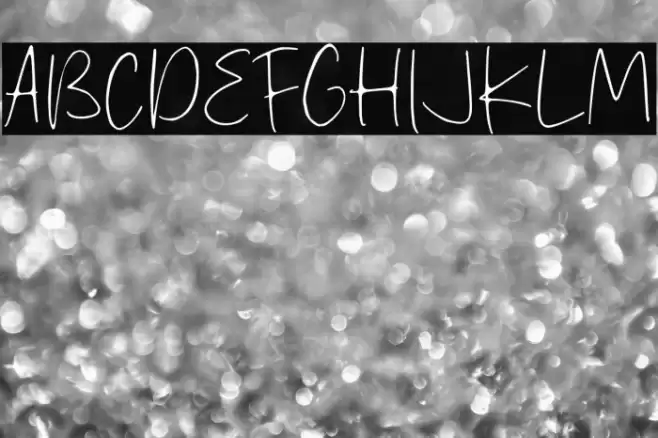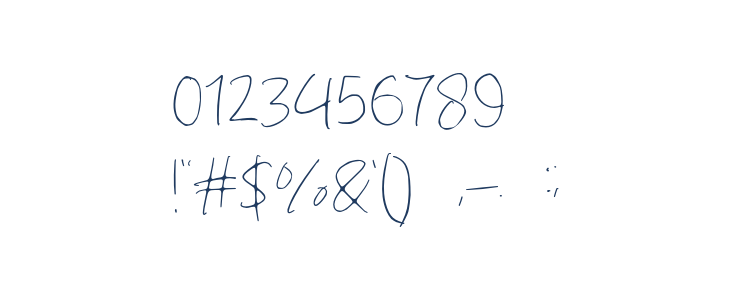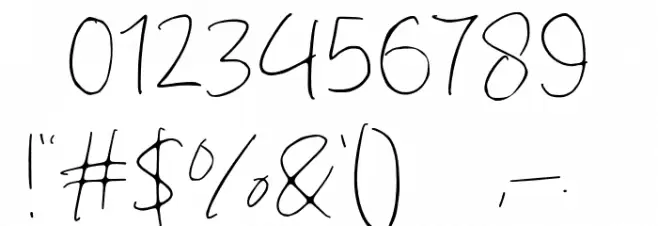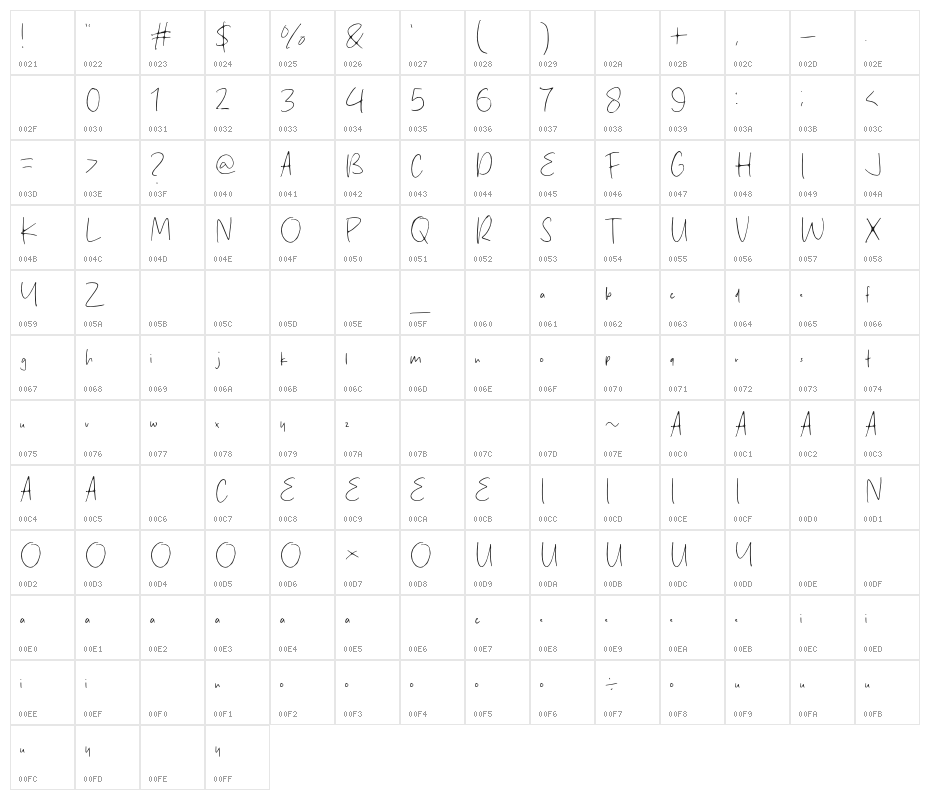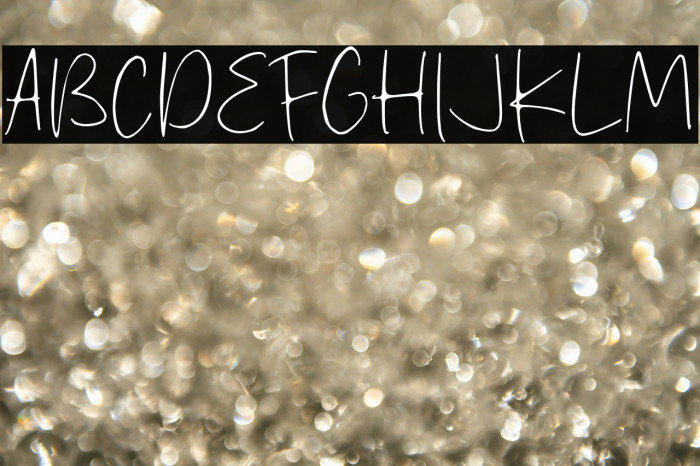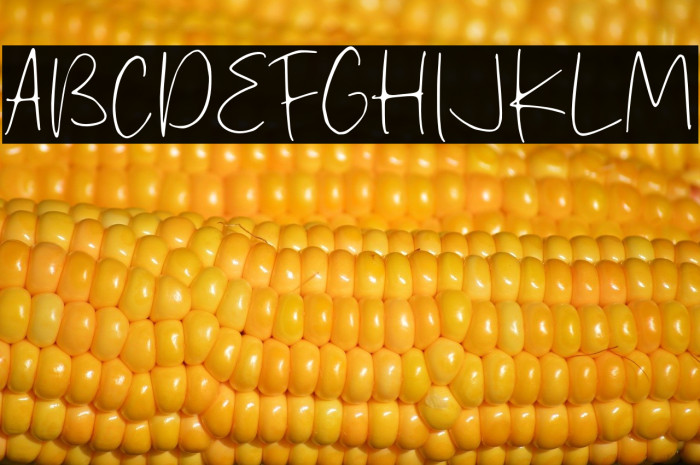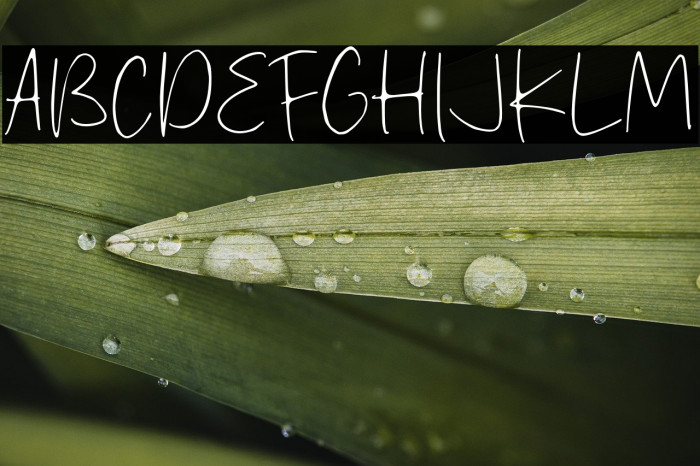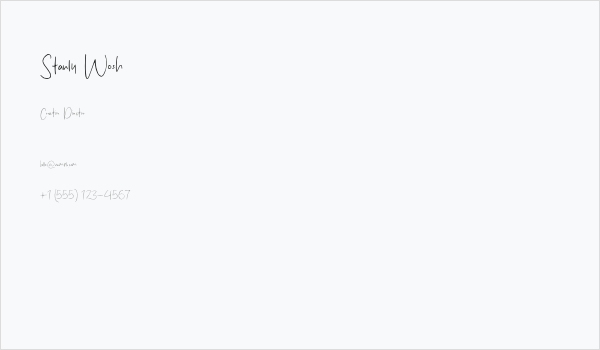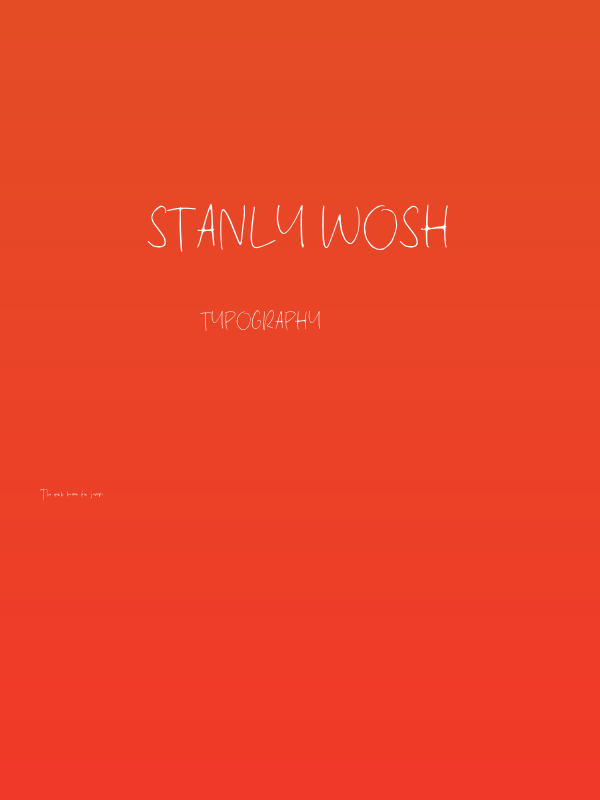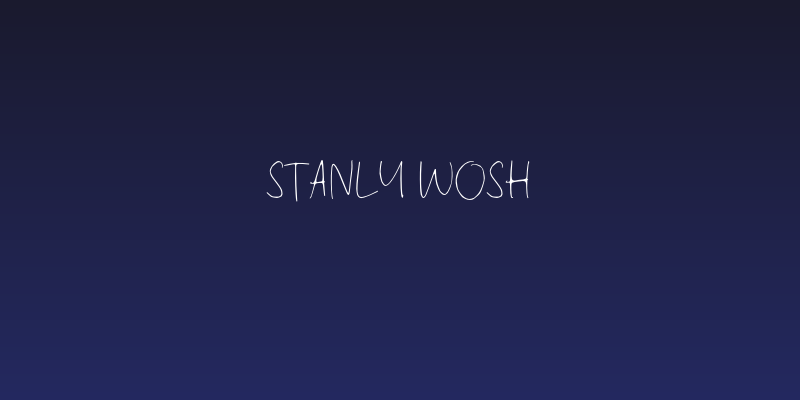
Stanly Wosh Font
Stanly Wosh Description
This font exudes a casual and handwritten style, characterized by its playful and informal appearance. The letters are slightly irregular, mimicking the natural flow of handwriting, which adds a personal touch to any design. The strokes are thin and consistent, providing a light and airy feel. The uppercase and lowercase letters maintain a cohesive look, while the numerals and special characters integrate seamlessly with the overall aesthetic. This font is ideal for projects that require a friendly and approachable vibe, such as personal invitations, casual branding, or creative projects.
A casual, handwritten font with a playful and informal style from Uncategorized fonts.
- Font: Stanly Wosh
- Proposed Projects: Ideal for personal invitations, casual branding, creative projects, and any design needing a friendly touch.
- Weight: Light
- Overall Style: Casual
- Use Case: Headlines, Logos, Invitations